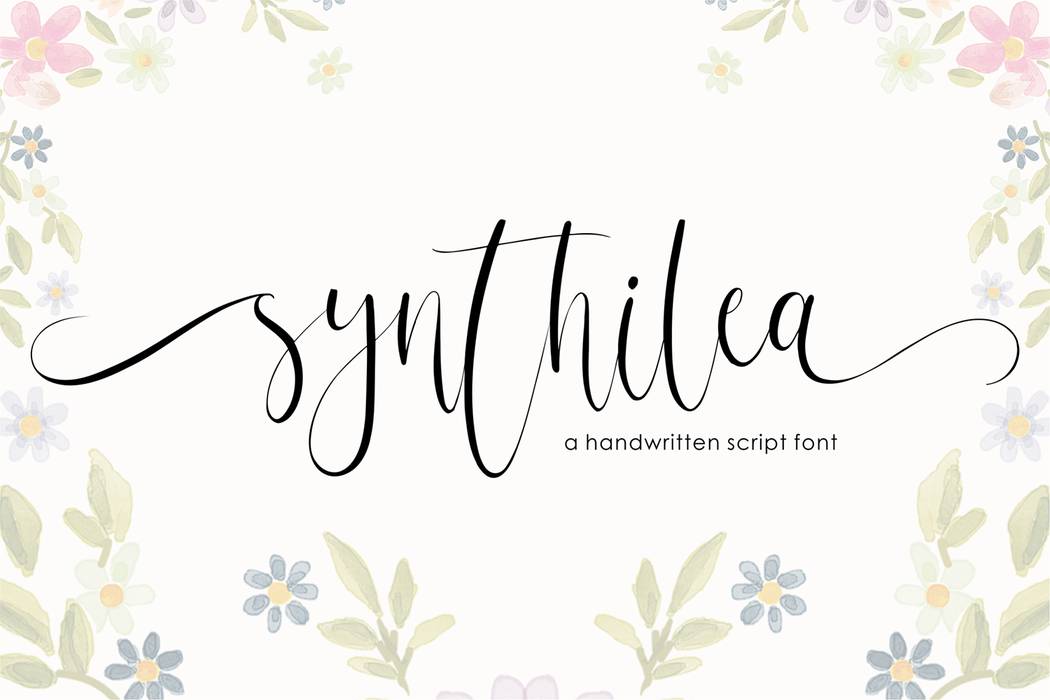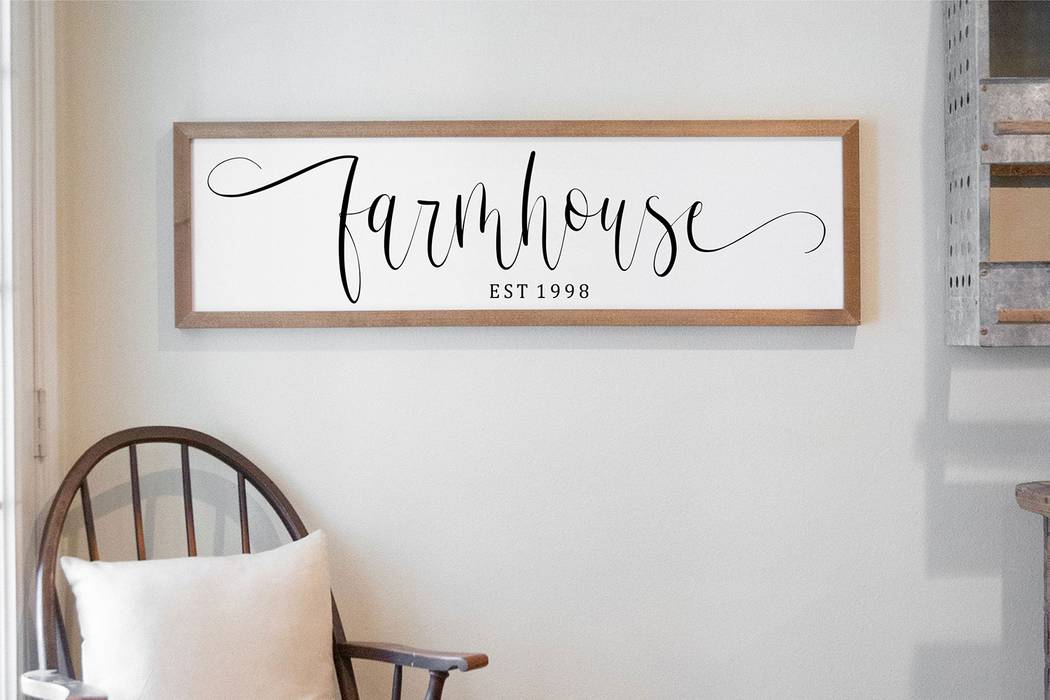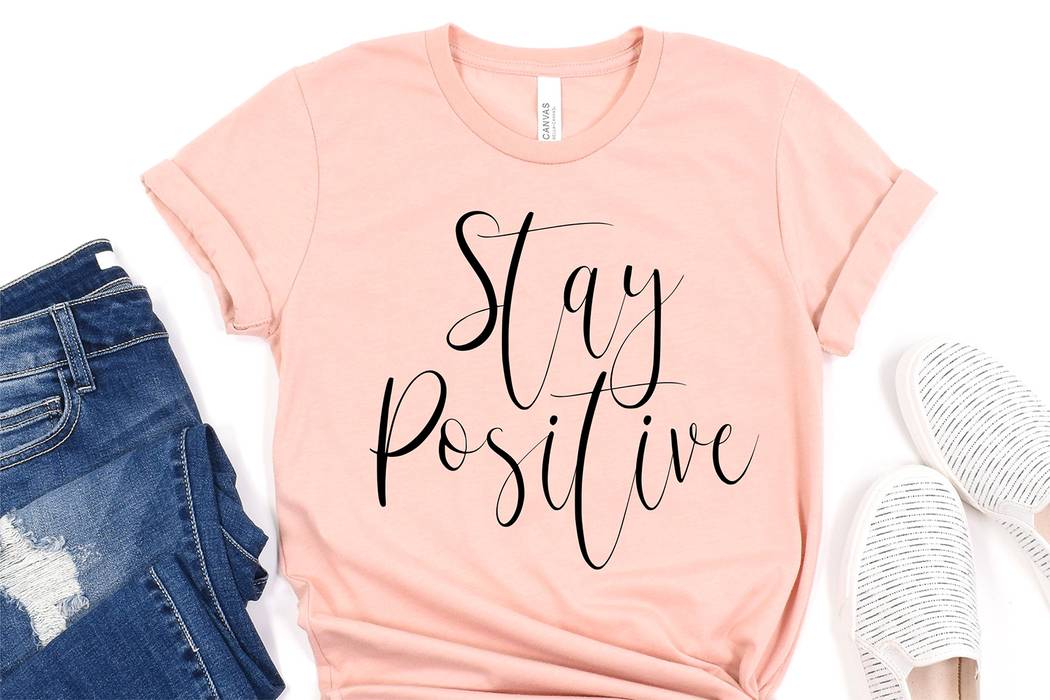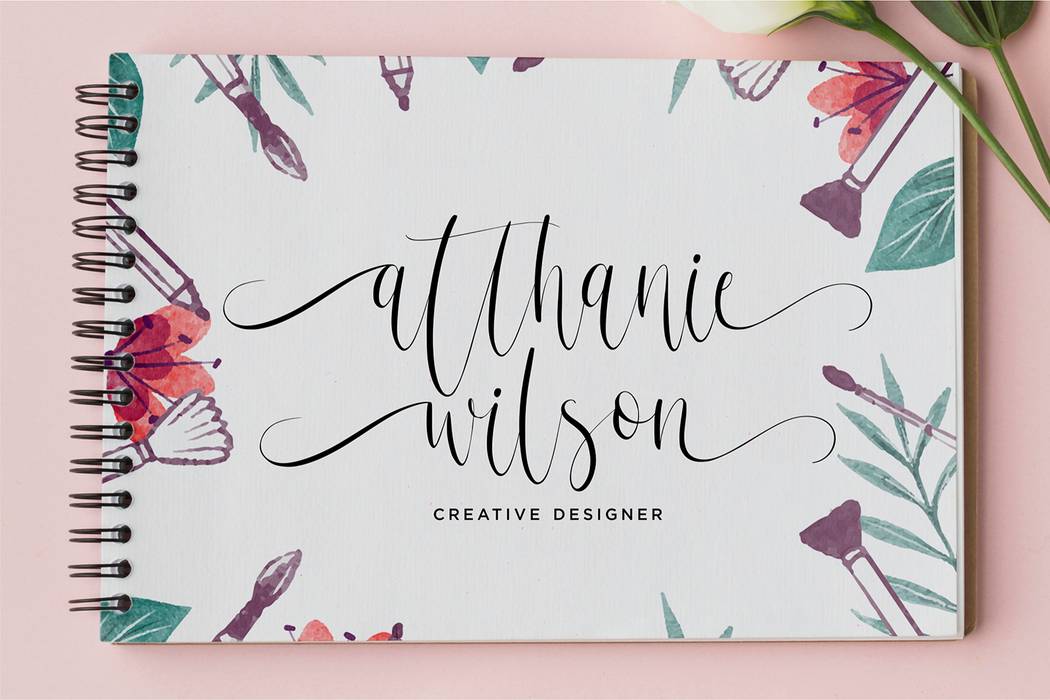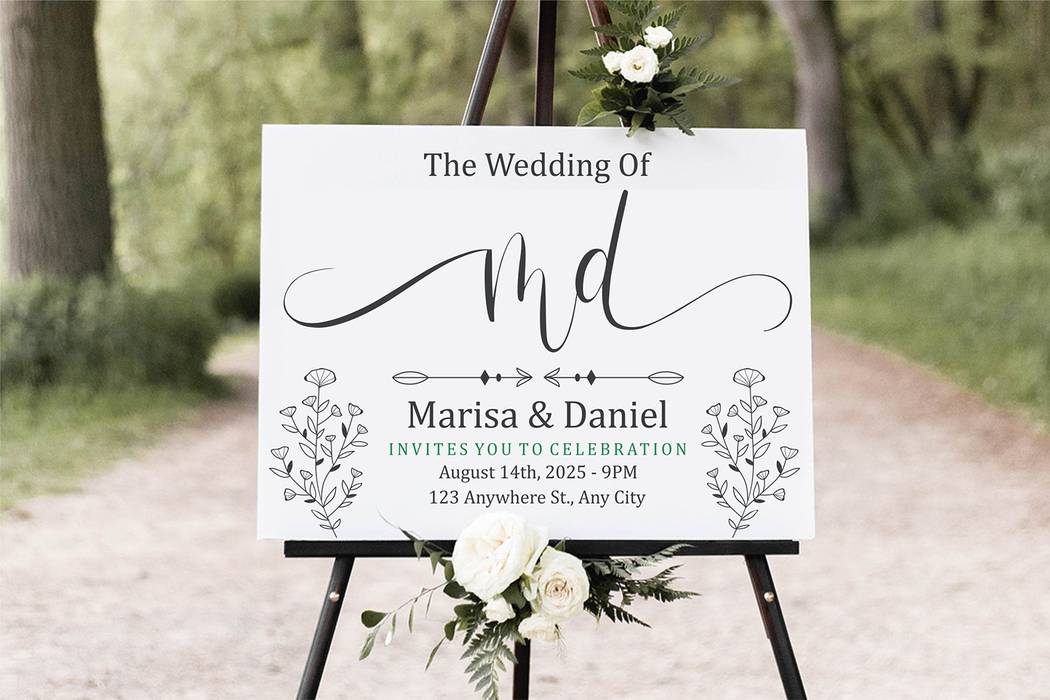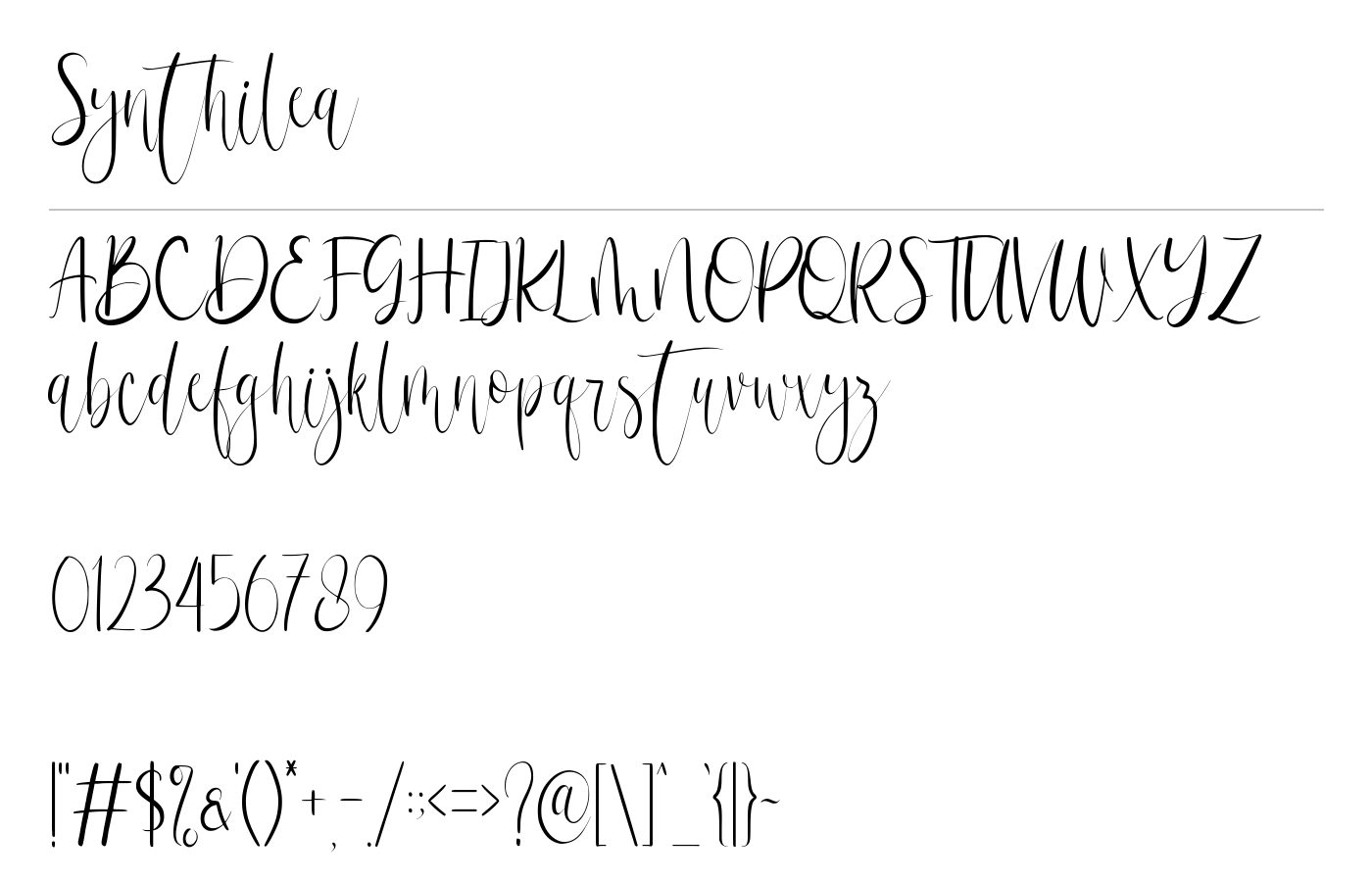
Synthilea is a delicate, handwritten script font characterized by its tall, slender letterforms and elegant, flowing strokes. It features a light weight with subtle variations in line thickness, giving it a graceful and airy feel ideal for sophisticated and artistic designs. Perfect for invitations, branding, and stylish headlines, Synthilea conveys a refined, feminine touch with a modern, handcrafted charm.
Synthilea Font
About Synthilea Font